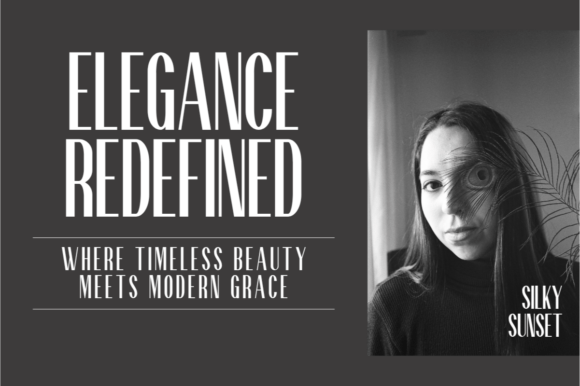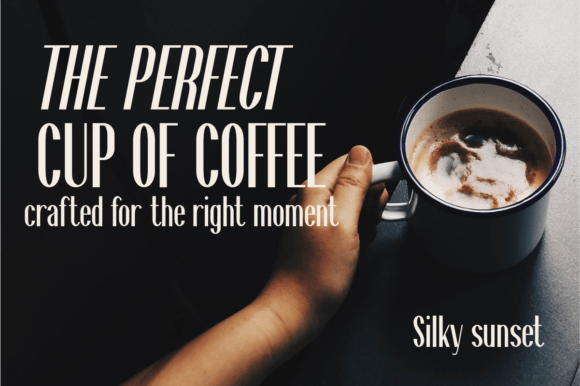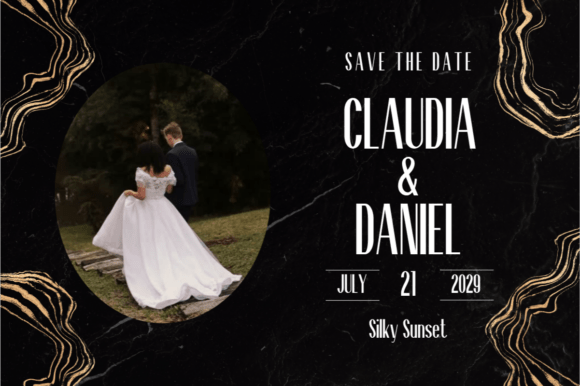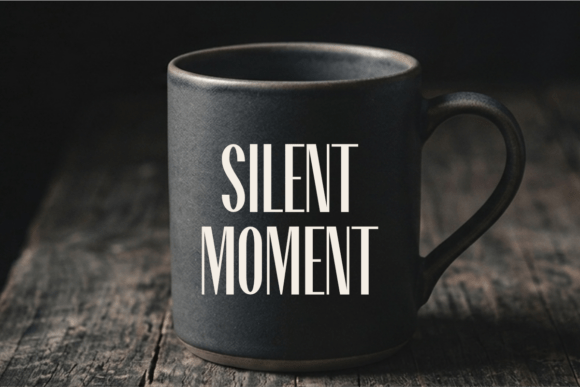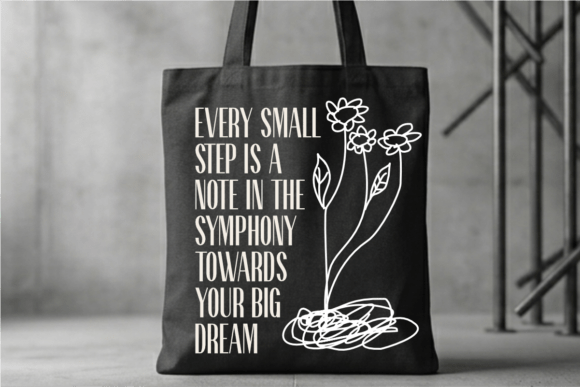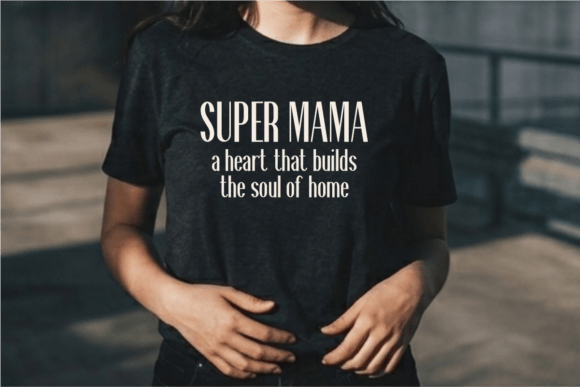
Introduction to Silky Sunset Font
Silky Sunset is a modern condensed sans serif font that blends elegance and minimalism, making it perfect for a wide range of creative projects.
Designed with clean lines and a sleek structure, this font is ideal for branding, logo design, editorial layouts, posters, social media graphics, packaging, and stylish typography needs With its tall and narrow letterforms, Silky Sunset delivers a sophisticated and contemporary look, suitable for both professional and aesthetic designs.
Key Features of Silky Sunset Font
Why Choose Silky Sunset Font?
Silky Sunset Font offers exceptional quality and versatility, making it a valuable addition to your design toolkit. Whether you’re creating for personal projects or commercial use, Silky Sunset Font delivers professional results.